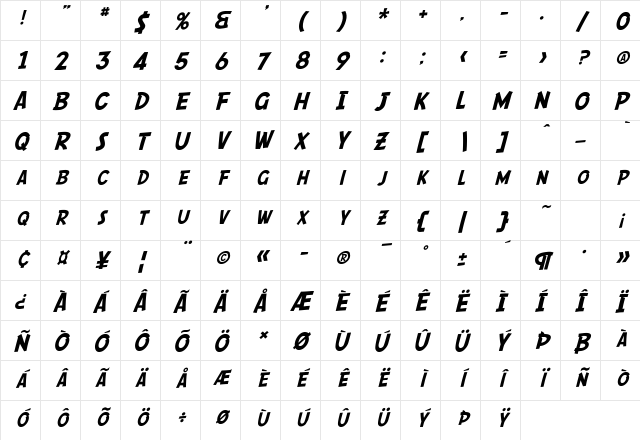
SF Comic Script Regular
Design Context for SF Comic Script
SF Comic Script has an approachable, lighthearted character - its loose, expressive forms are well-suited to children's content, casual branding, and fun-first design.
Font Pairing: Pairs well with a rounded or humanist sans for body copy, maintaining the friendly tone without relying on SF Comic Script to carry extended reading.
Pro Tip: Use SF Comic Script at larger display sizes where its expressive character can land. Pair with a clean, simple sans for body copy to maintain readability.